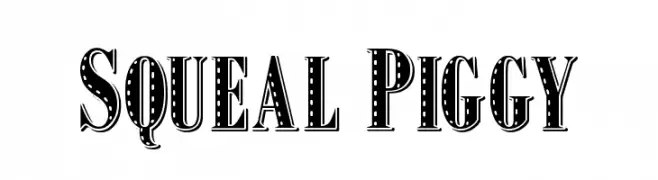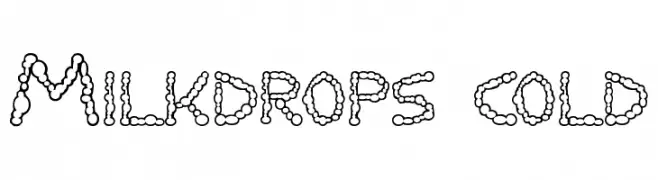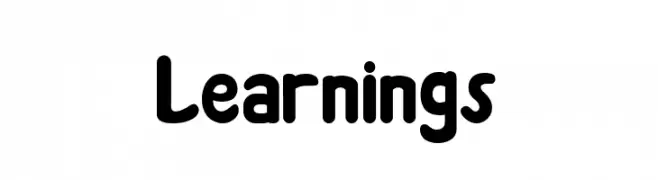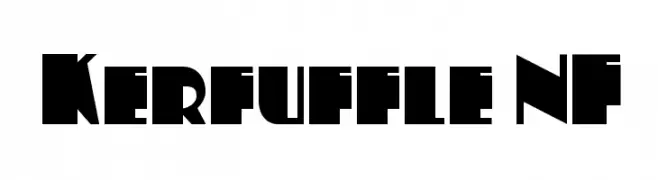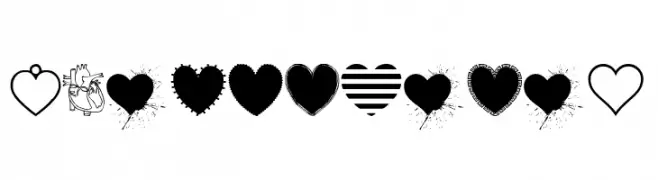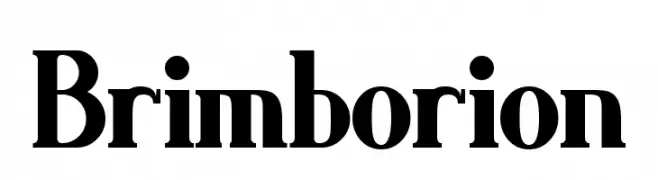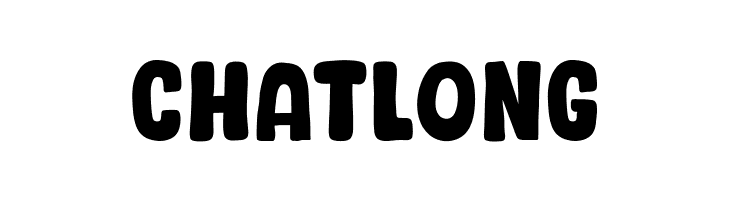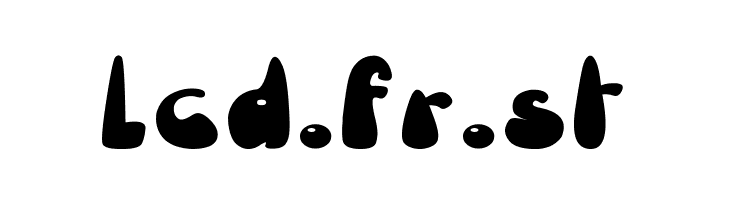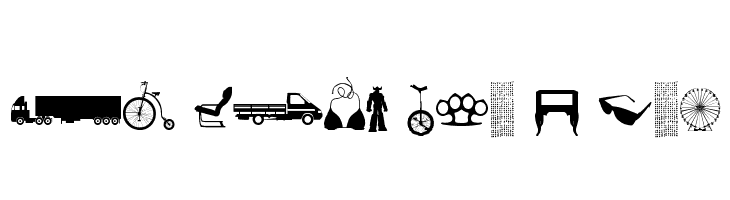
A bold, decorative font with a vintage, marquee-style design.
A playful, bubble-like font with rounded, droplet-inspired characters.
A fluid and elegant script font with a natural, cursive style.
An elegant script font with flowing cursive letters and intricate swashes.
A playful, bold font with rounded edges and a bubbly appearance.
A bold, geometric font with sharp angles and a modern aesthetic.
A diverse collection of heart-themed symbols with creative and artistic variations.
A playful, dotted decorative font with a whimsical style.
A playful, decorative font with whimsical accents and bold characters.
A bold, high-contrast serif font with a classic yet modern appeal.